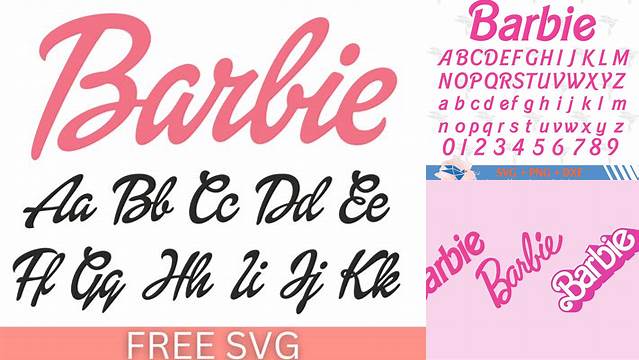
Are you a Barbie enthusiast or a designer looking to add a touch of Barbie magic to your projects? Well, you're in the right place! In this article, we'll dive into the world of Barbie fonts, where to find them, and how to use them. Finding the perfect font can be a game-changer, and when it comes to capturing the essence of Barbie, the right typeface is key. Let's explore everything you need to know about getting your hands on a new Barbie font for free.
What is the Barbie Font?
So, what exactly is the Barbie font? Well, it's not just one specific font! Over the years, the Barbie brand has used a variety of typefaces to represent its iconic image. However, when people talk about the Barbie font, they generally refer to fonts that embody the playful, stylish, and feminine characteristics associated with Barbie. These fonts often feature:
- A sense of fun and whimsy
- Elegant curves and stylish swashes
- A modern and fashionable appeal
Many designers and fans seek fonts that capture these elements to evoke the Barbie aesthetic in their projects. While there isn't an officially released "Barbie font" for public use, several fonts closely resemble the typefaces used in Barbie logos, marketing materials, and merchandise. Knowing this helps you to look for similar fonts that capture the spirit of Barbie. The essence of the Barbie font lies in its ability to convey a sense of glamour, playfulness, and timeless appeal. Think of fonts that have a touch of elegance but are still approachable and fun. Typefaces with rounded edges and a bit of flair often fit the bill perfectly. Ultimately, the Barbie font is more about the feeling it evokes than a specific, named font. It's about capturing the iconic brand's spirit of fun, fashion, and endless possibilities. When selecting a font for your Barbie-inspired projects, consider how well it reflects these qualities. Does it feel stylish and modern? Does it have a playful touch? Does it make you think of glamour and imagination? If so, you're likely on the right track.
Where to Find Free Barbie Fonts
Okay, guys, let's get to the good stuff: where can you find these awesome Barbie-esque fonts without spending a dime? Here are some fantastic resources:
- Google Fonts: While Google Fonts might not have an exact Barbie match, it has plenty of stylish and modern fonts that can work well. Fonts like "Pacifico" or "Lobster" can give you a similar vibe, and they're all free to use, even commercially!
When hunting for Barbie fonts, remember to use relevant keywords. Try searching for terms like "cute fonts," "girly fonts," "script fonts," or "display fonts." These keywords will help you narrow down your search and find typefaces that match the Barbie aesthetic. Also, don't be afraid to experiment with different font combinations. Pairing a script font with a simple sans-serif can create a balanced and visually appealing design. For example, you could use a swirly script font for headings and a clean, modern font for body text. And hey, always double-check the font's license before using it in your projects! Some fonts are free for personal use only, while others allow commercial use. Make sure you're following the terms of the license to avoid any legal issues. With a little bit of searching and creativity, you'll be able to find the perfect Barbie-inspired font for your next project.
Tips for Choosing the Right Barbie Font
Choosing the right Barbie font involves more than just finding something pink and sparkly! Here are some tips to help you make the best choice:
- Consider the Project: What are you using the font for? A birthday invitation? A website header? A social media post? The project will influence the type of font you need. For example, a formal invitation might require a more elegant script, while a social media graphic might benefit from a bolder, more playful font.
- Think About Readability: While a fancy font might look great, make sure it's still easy to read. If your audience can't decipher the text, the font is useless. Opt for fonts with clear and legible letterforms, especially for body text. Pay attention to the spacing between letters and words to ensure optimal readability. After all, the purpose of your text is to communicate a message, so readability should always be a top priority.
- Match the Tone: Does the font match the overall tone and message of your project? A serious project might not be the best fit for a super-whimsical font, and vice versa. Choose a font that complements the mood and style of your content. For Barbie-themed projects, consider fonts that evoke feelings of fun, glamour, and empowerment. Think about the specific message you want to convey and select a font that aligns with that message.
- Test it Out: Before committing to a font, test it out in your design. See how it looks with different colors, sizes, and layouts. Make sure it works well with other design elements. Testing the font in context will help you ensure it's the right fit for your project. Try creating mockups or sample designs to see how the font integrates with the overall aesthetic. This will give you a better sense of whether the font is truly the right choice.
When selecting a Barbie font, it's also important to consider the font's versatility. Can it be used in a variety of contexts? Does it offer different weights and styles? A versatile font will give you more flexibility and allow you to create a cohesive design across different platforms and applications. Look for fonts that include multiple weights (such as light, regular, and bold) and styles (such as italic and condensed). This will allow you to create visual hierarchy and add emphasis to your text. And hey, don't be afraid to experiment with different font combinations! Pairing a Barbie-inspired font with a more neutral font can create a balanced and visually appealing design. Just make sure the fonts complement each other and don't clash.